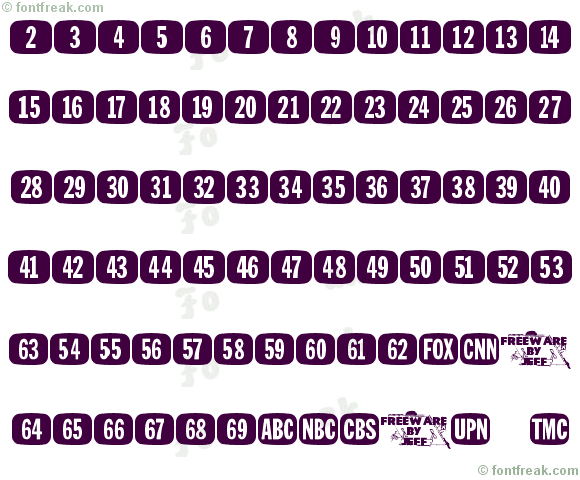
Tee Vee Set JL
Tee Vee Set JL is a distinctive display font designed by Jeff Levine, characterized by its playful and bold aesthetic. This font falls into the decorative category, making it an excellent choice for projects where eye-catching design is paramount. The Tee Vee Set JL features a consistent stroke weight that exudes stability while maintaining an inviting charm. The letters exhibit minimal contrast, giving them a solid appearance, which is complemented by generous spacing that enhances readability and visual appeal. Its unique design incorporates rounded edges and quirky elements that add a touch of whimsy, making it perfect for creative applications.
This font is particularly well-suited for a variety of use cases, including vibrant movie posters that require a touch of fun, lively signage for restaurants that want to convey a casual atmosphere, and engaging packaging designs for products aimed at children. Additionally, Tee Vee Set JL can elevate invitations for casual events, such as birthday parties or festive gatherings, where a sense of joy and creativity is desired. The target audience for this font includes graphic designers looking to add a playful element to their projects, small business owners seeking to create memorable branding, and content creators who wish to capture attention with unique typography.
What truly sets the Tee Vee Set JL font apart is its ability to blend fun and functionality, making it versatile enough for various applications while maintaining a strong personality. Its freeware license allows users to access it at no cost, making the Tee Vee Set JL font free download an appealing option for those looking to enhance their design repertoire without breaking the bank. With its charming design and practical usability, this font is sure to leave a lasting impression.